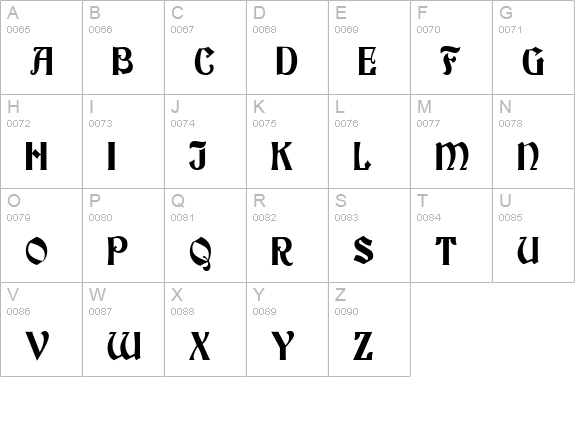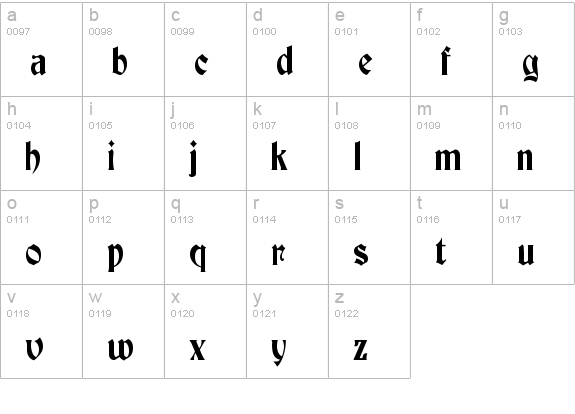
BuckinghamCondensed Regular Font Details
BuckinghamCondensed Regular is the standard, neutral variant in the BuckinghamCondensed typeface family \xE2\x80\x94 well suited to general body text, paragraphs, and standard typographic work.
BuckinghamCondensed Regular font exudes elegance and sophistication with its sleek design and clean lines. This versatile typeface is perfect for a wide range of design projects, from branding to editorial layouts. Its condensed structure adds a touch of modernity while maintaining readability and clarity. What sets BuckinghamCondensed Regular font apart is not only its timeless aesthetic but also the fact that it is available for free download at FontsMarket.com. This means that you can easily access this high-quality font for your creative endeavors without any cost. Whether you're working on a professional project or a personal passion project, BuckinghamCondensed Regular font will elevate your designs with its refined style and versatility.